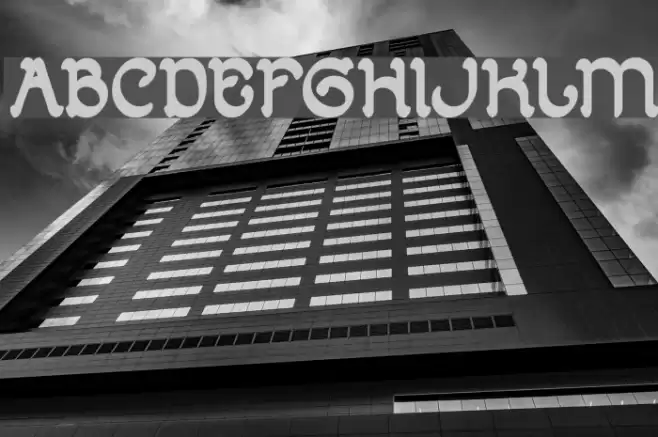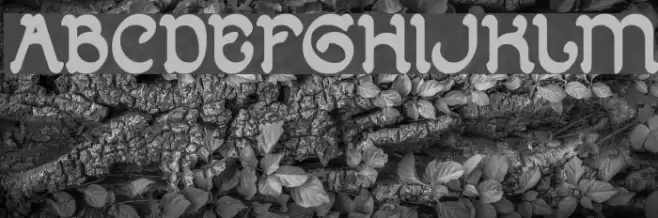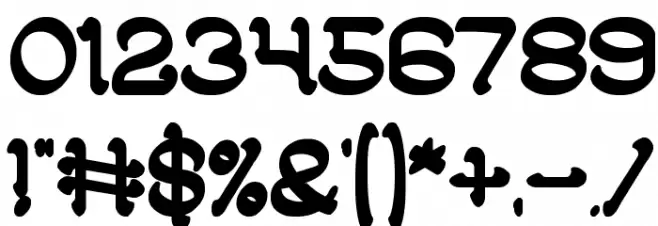
ARABIAN KNIGHT Bold Font
ARABIAN KNIGHT Bold Description
This font features a bold and playful design with a distinct decorative flair. The characters have a rounded, bubble-like appearance, giving them a whimsical and friendly feel. The strokes are thick and consistent, contributing to a strong visual presence. The font maintains a uniform width across all characters, enhancing its readability despite the decorative style. The uppercase and lowercase letters are well-proportioned, and the numbers and special characters are designed to match the overall aesthetic. This font is ideal for projects that require a fun and engaging look.
A bold, playful font with rounded, bubble-like characters and a decorative style from Uncategorized fonts.
- Proposed Projects: Ideal for children's books, playful branding, posters, and party invitations.